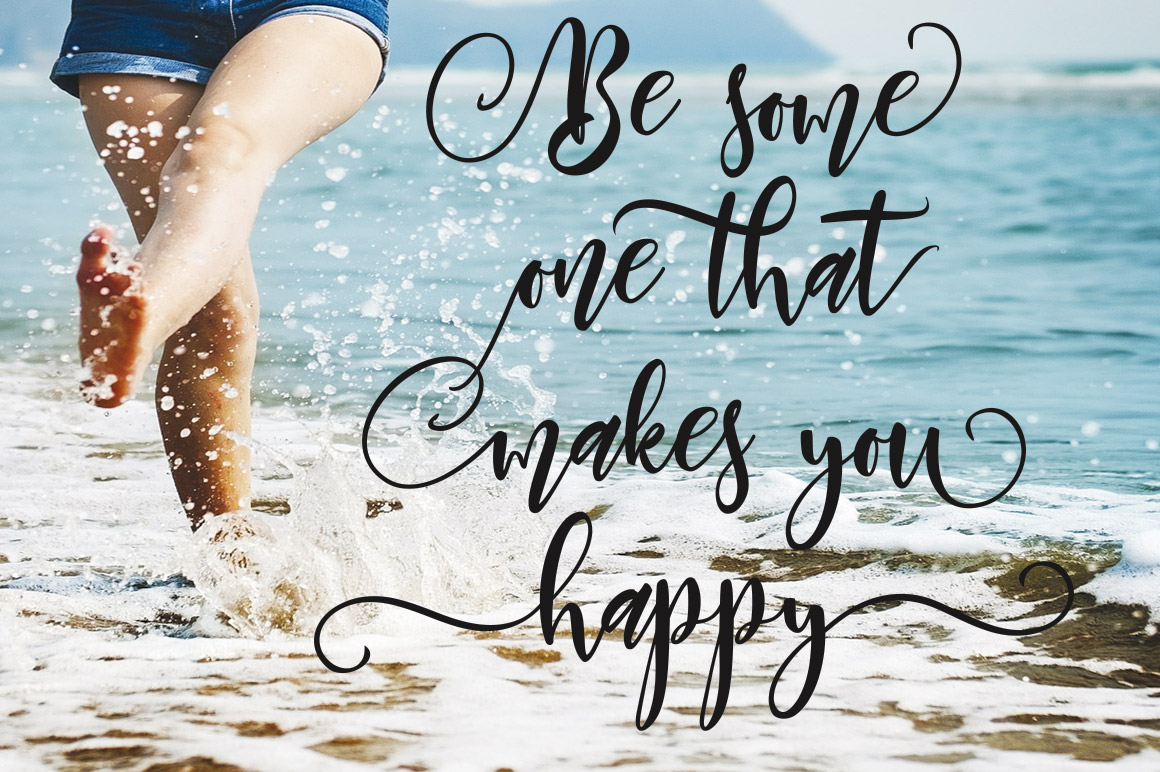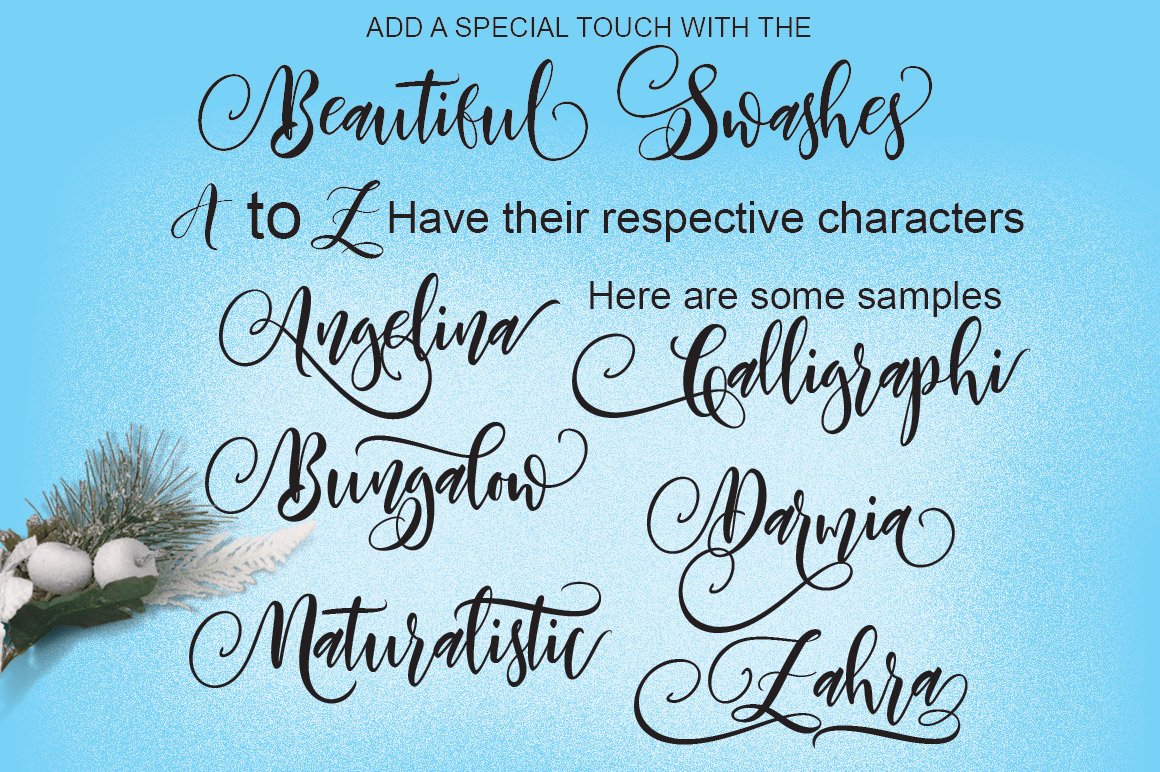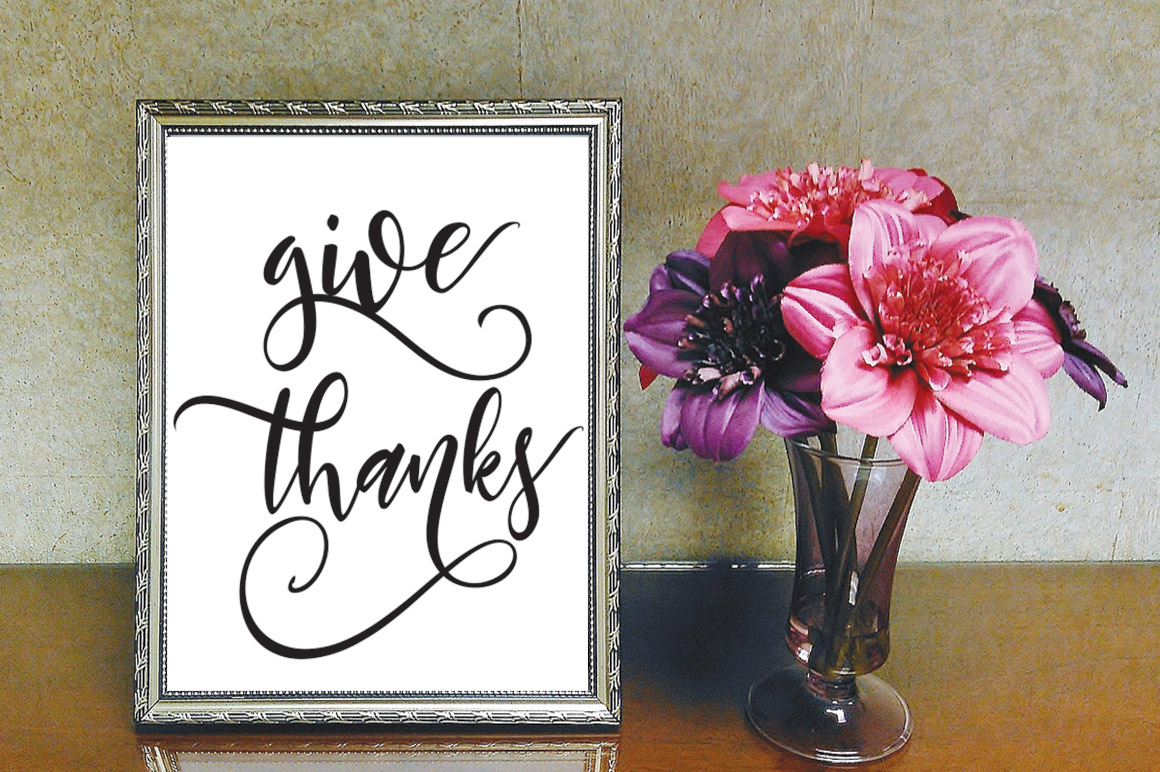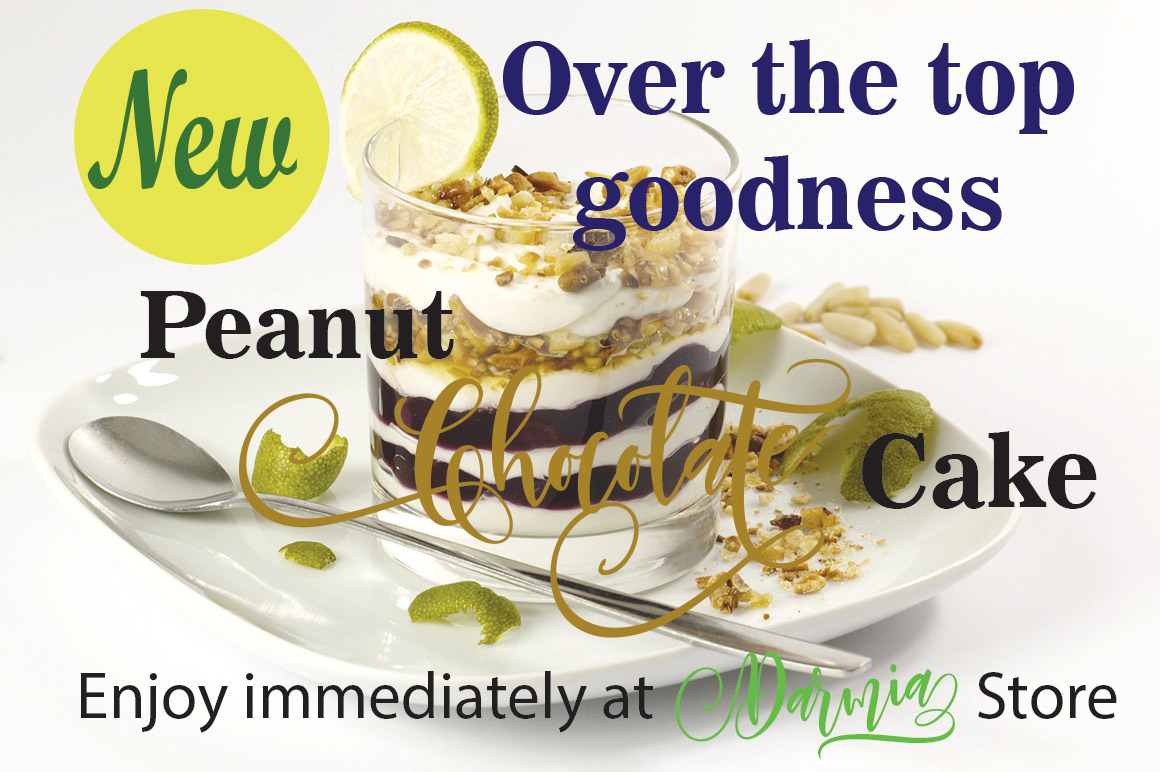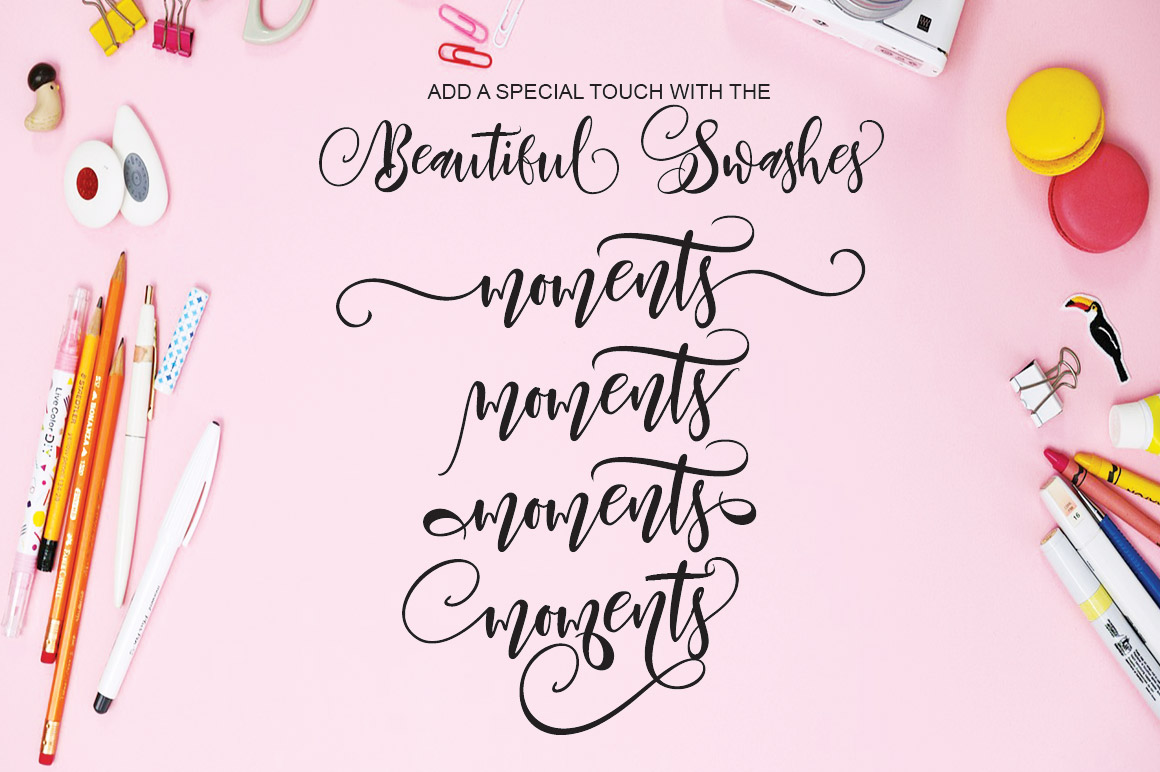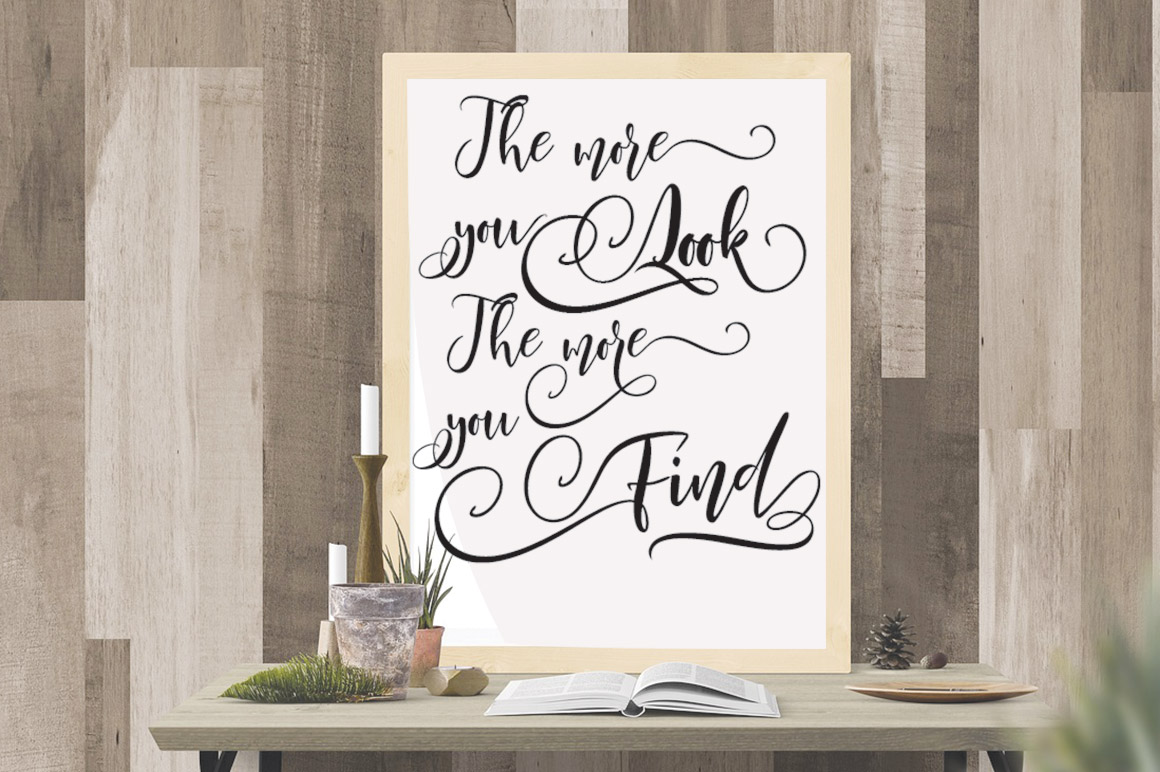
Introducing Darmia Font: Elevate Your Designs with Elegance and Flair
Never has it been easier to make tons of gorgeous typographic designs in a jiffy; Darmia is a script jam-packed with flourishes and additions to make each of your designs completely unique. Beautifully crafted, Darmia is a script font that packs a punch. Add Darmia, a versatile script font, to your collection today!
The Power of Typography: Why Fonts Matter in Design
Typography is an essential element in design, playing a crucial role in conveying messages, evoking emotions, and creating visual identities. The right font can make or break a design, and that’s where Darmia comes in – a stunning script font designed to take your creations to the next level.
What Makes Darmia Font So Special?
Darmia is not just another script font; it’s a comprehensive typographic solution that offers a wide range of features and benefits. Here are some of the key reasons why Darmia stands out:
• Unique Flourishes and Additions: Darmia is packed with an array of flourishes and additions that allow you to customize your designs and make them truly unique. From elegant swashes to intricate details, Darmia provides everything you need to create stunning typographic designs.
• Versatility: Darmia is an incredibly versatile font, suitable for a wide range of design applications, from branding and advertising to packaging and digital media.
• Ease of Use: Despite its advanced features, Darmia is remarkably easy to use, even for designers without extensive typography experience.
• Beautifully Crafted: Darmia’s design is rooted in a deep understanding of typography and aesthetics, ensuring that your designs look professional, elegant, and sophisticated.
How to Use Darmia Font in Your Designs
Using Darmia in your designs is straightforward and intuitive. Here are some practical tips to get you started:
• Pair Darmia with Other Fonts: Combine Darmia with complementary fonts to create visually appealing contrast and hierarchy in your designs.
• Experiment with Flourishes: Darmia’s flourishes and additions are designed to be easily accessible and customizable. Experiment with different combinations to find the perfect look for your design.
• Pay Attention to Kerning and Spacing: To ensure optimal readability and aesthetics, pay attention to kerning and spacing when using Darmia in your designs.
Who Can Benefit from Darmia Font?
Darmia is an excellent addition to any designer’s toolkit, regardless of their specific area of expertise. Here are some professionals who can benefit from Darmia:
• Graphic Designers: Darmia is an excellent choice for graphic designers looking to create stunning typographic designs for clients or personal projects.
• Branding and Identity Designers: Darmia’s unique flourishes and additions make it an excellent choice for branding and identity designers seeking to create distinctive visual identities.
• Crafters and Makers: Darmia is also suitable for crafters and makers who want to add a touch of elegance and sophistication to their handmade products or DIY projects.
In conclusion, Darmia font is a powerful typographic tool that offers a unique combination of elegance, versatility, and ease of use. Whether you’re a seasoned designer or a crafty maker, Darmia has the potential to elevate your designs and take your creativity to new heights. With its extensive features, beautiful craftsmanship, and wide range of applications, Darmia is an excellent addition to any design collection.